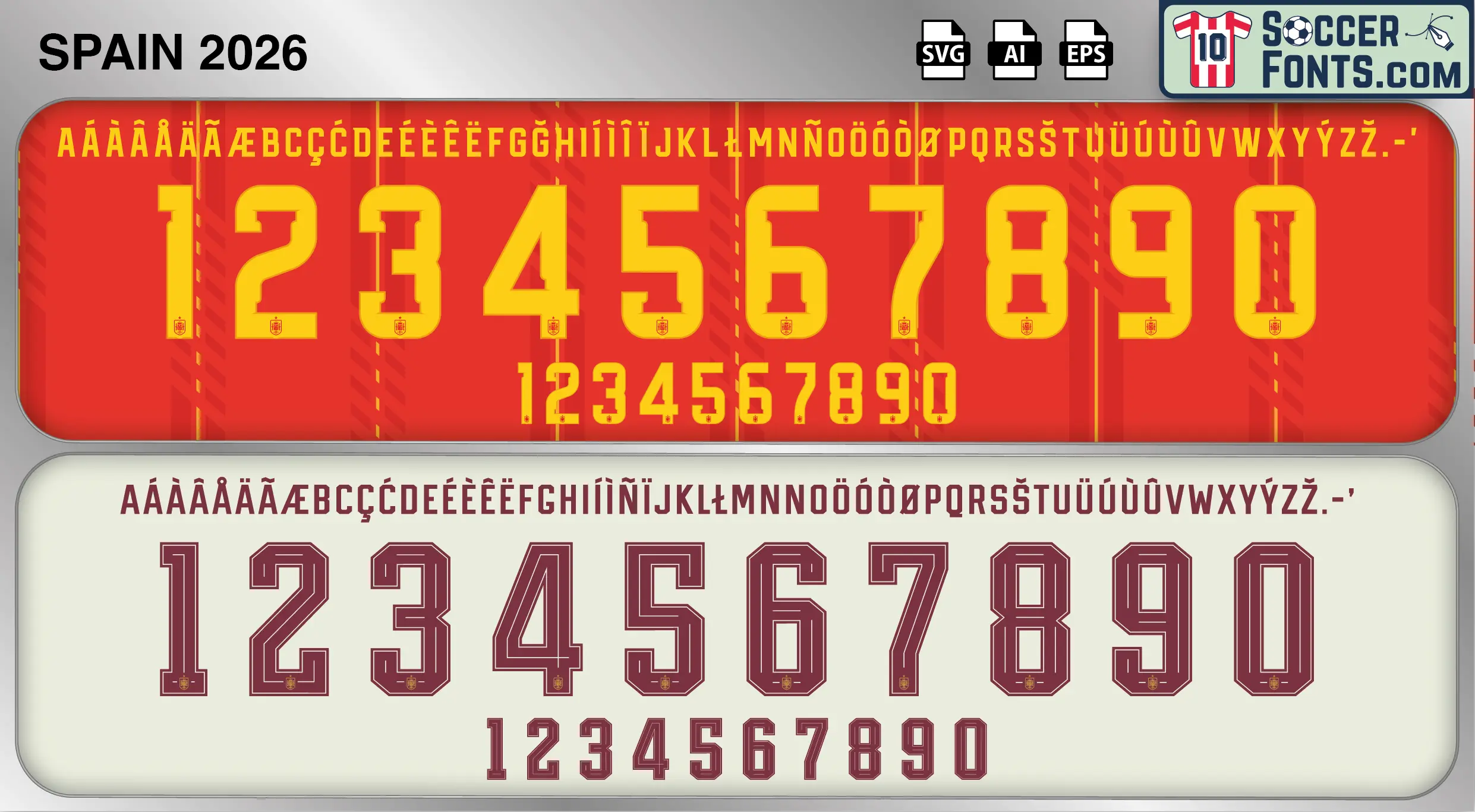
Spain 2026 World Cup Font
The Spain 2026 World Cup font is an editable soccer jersey lettering design in vector format inspired by the Spain kit styles used during the 2026 FIFA World Cup. This football font artwork is prepared for football shirt recreations, custom jersey projects, football kit mockups and sports graphic design workflows.
The Spain 2026 World Cup font package is associated with the official tournament-era lettering systems used across Spain’s World Cup kits. Unlike many previous international tournaments, selected Adidas national teams feature separate home and away font designs during the 2026 World Cup cycle. The Spain 2026 World Cup font therefore represents a complete tournament collection that includes both official home and away lettering styles used throughout the competition. Spain shirts from this World Cup era are expected to become highly collectible among football shirt enthusiasts, designers and supporters seeking authentic tournament-era kit details and typography resources.